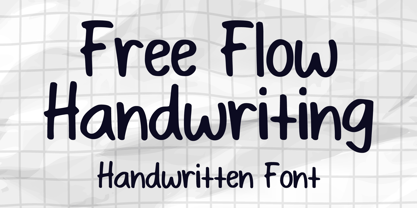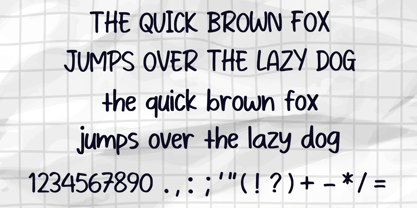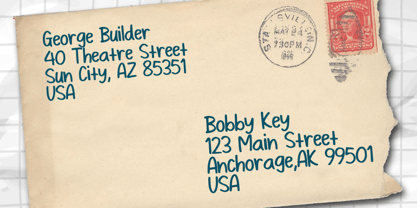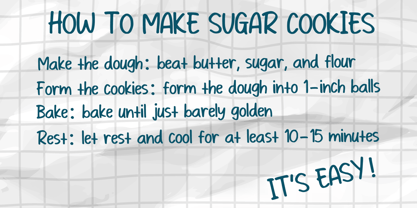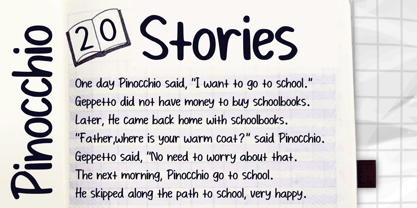
Free Flow Handwriting
The Free Flow Handwriting Font Family was designed by Gabriel Valentinus and published by Mvmet. Free Flow Handwriting contains 1 styles. More about this family
Experience the fluid elegance of Free Flow Handwriting, a playful font perfect for daily use. Elevate a variety of design projects with this whimsical marker script. From infusing sticker designs with personality to crafting impactful logos, Free Flow Handwriting adds a touch of panache and creativity. Discover its versatility in print media—making magazine covers more striking or adding a unique voice to book covers. It flawlessly complements comic lettering and cartoon illustrations, packed with potential to transform your creative ideas into reality. Let Free Flow Handwriting lend your designs an effortlessly cool finesse, ideal for branding, editorial projects, and more.
Designers: Gabriel Valentinus
Foundry: Mvmet